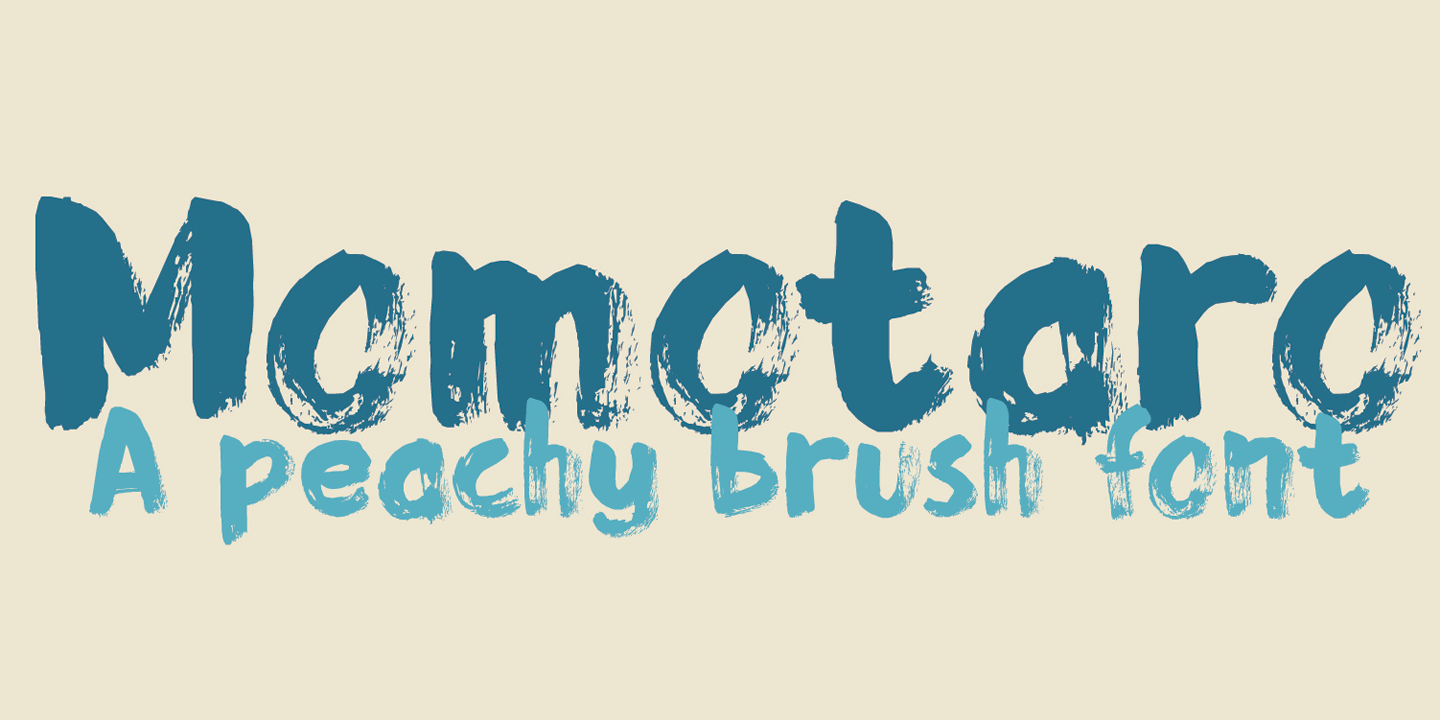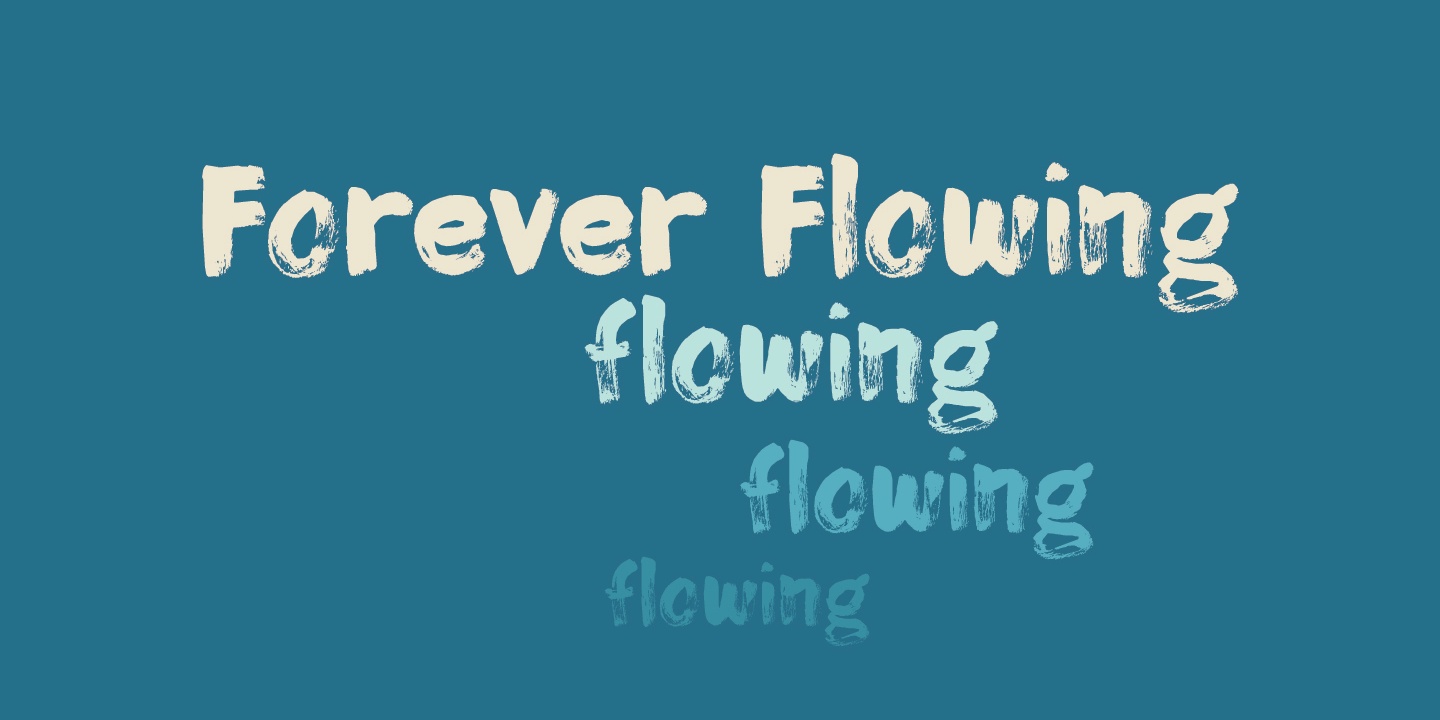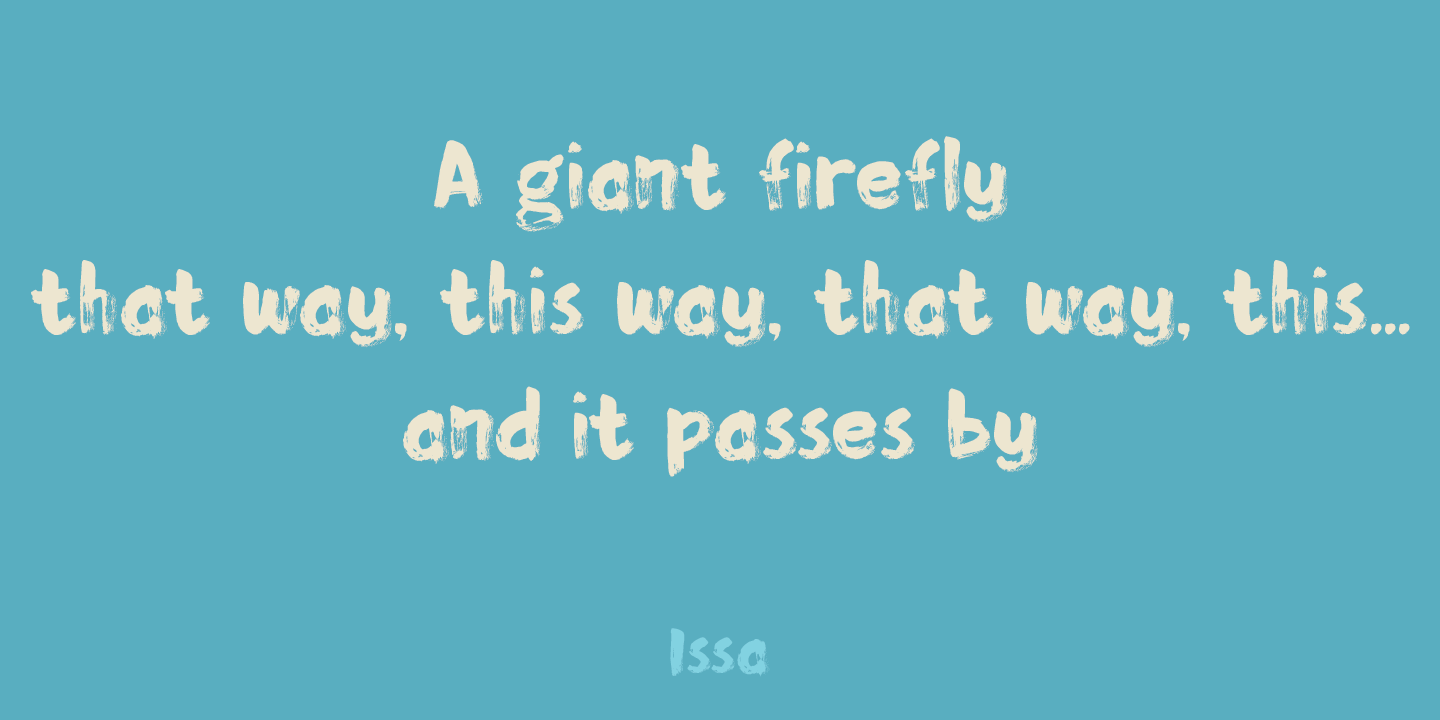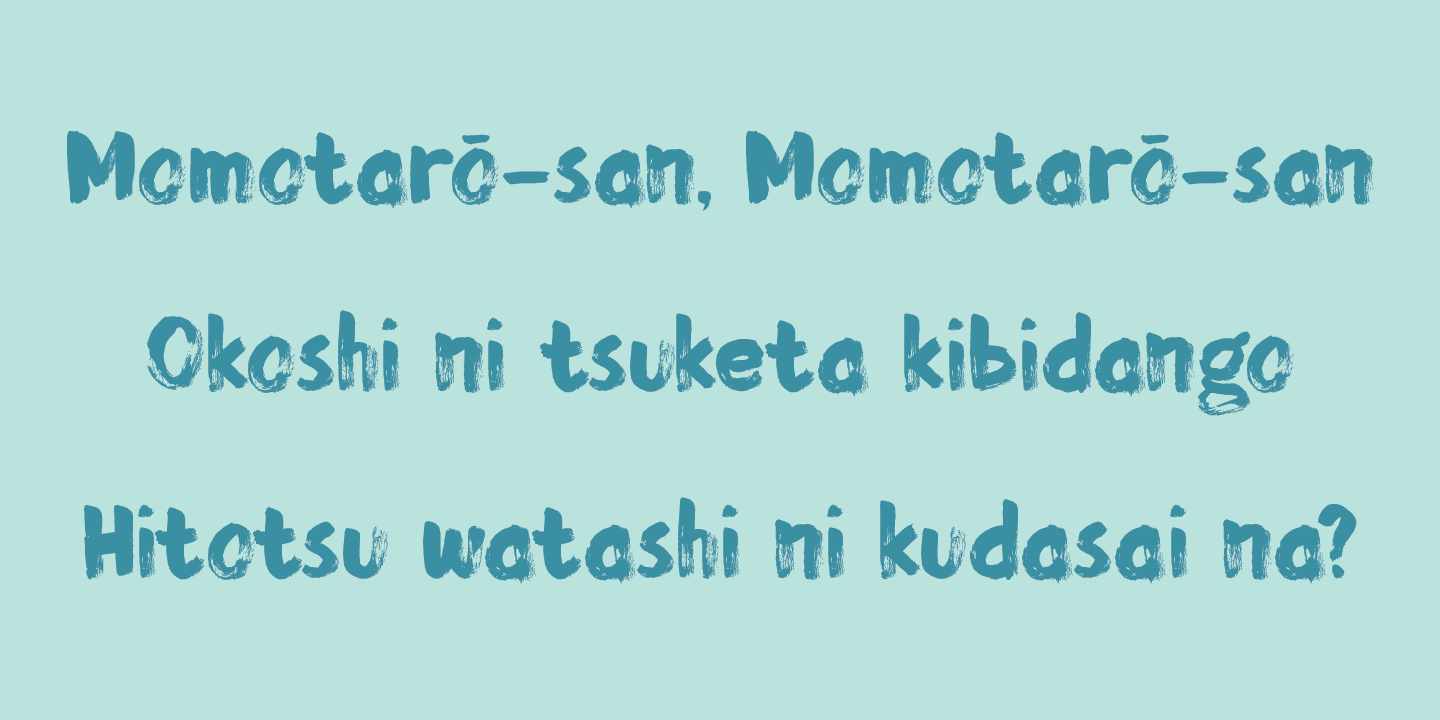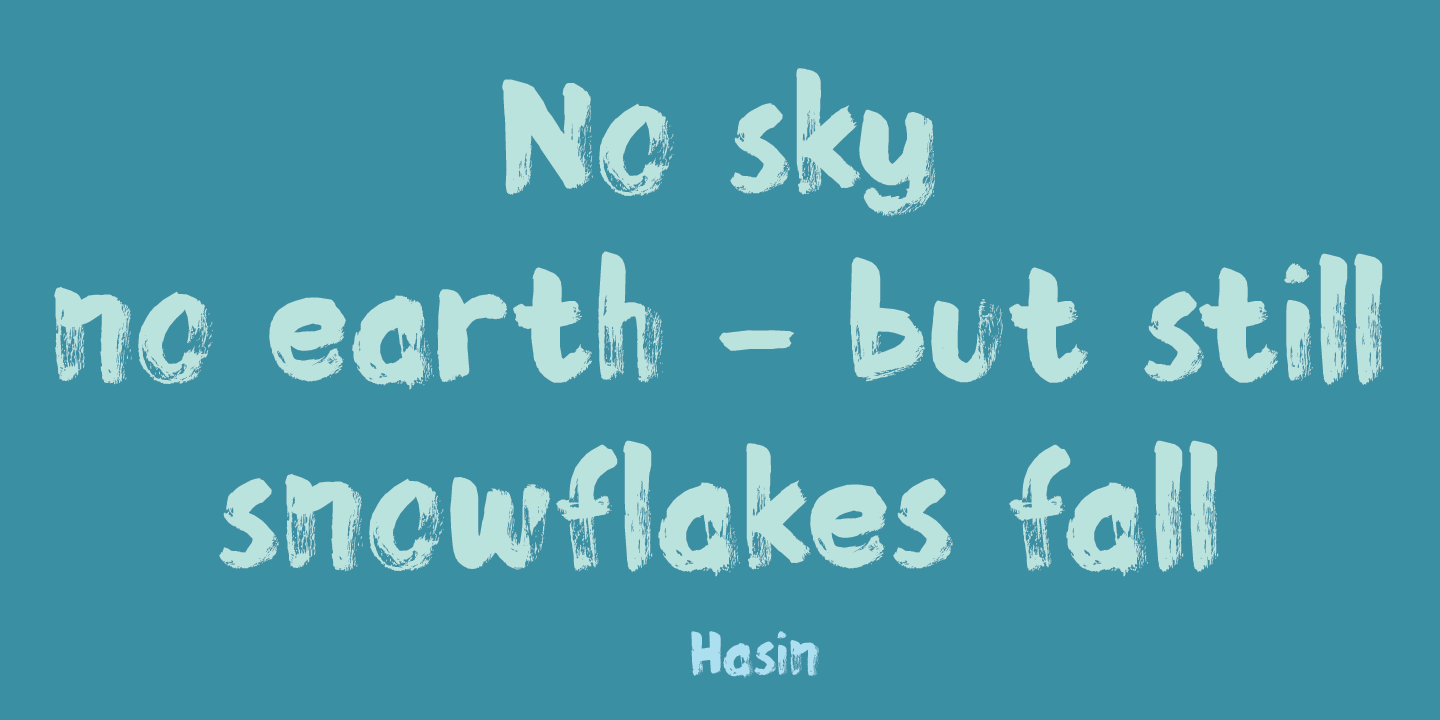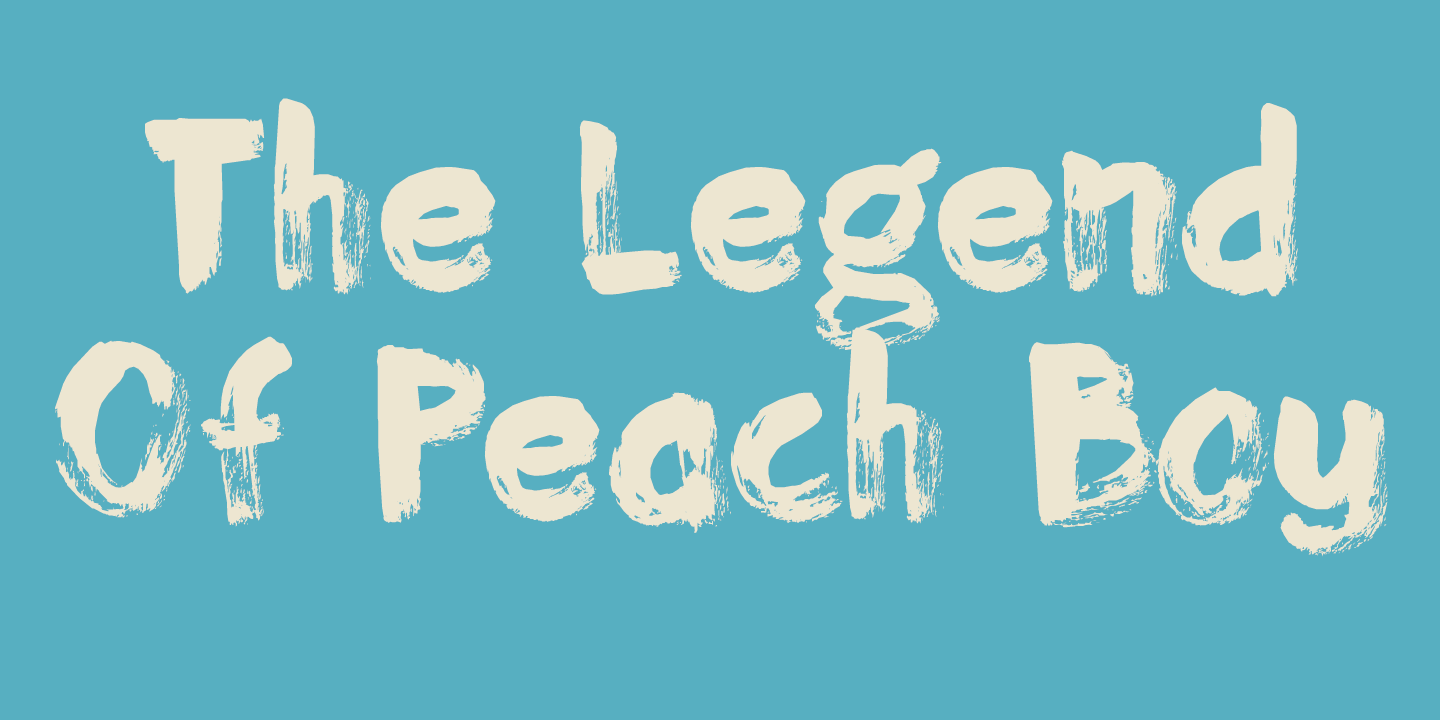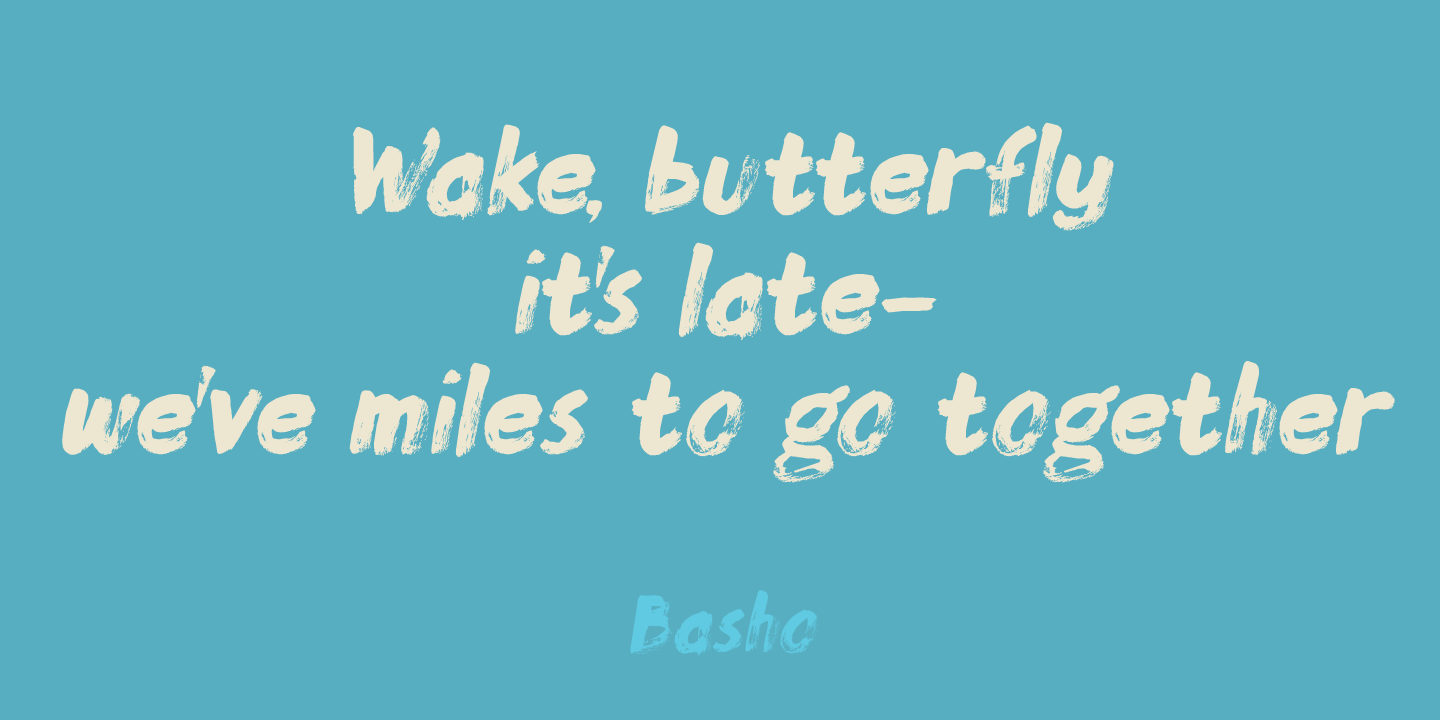
Momotaro
Momotar? is a Japanese legend about a boy who came to earth inside a giant peach. He was found by a childless woman and grew up to be a hero. I'm in a Japanese mood - mainly because lately I have been working with brushes and ink a lot.
Momotaro font is a very detailed brush font. It doesn't come with a hero inside a giant peach, but it does give your design work that extra oomph, ahh and wow.